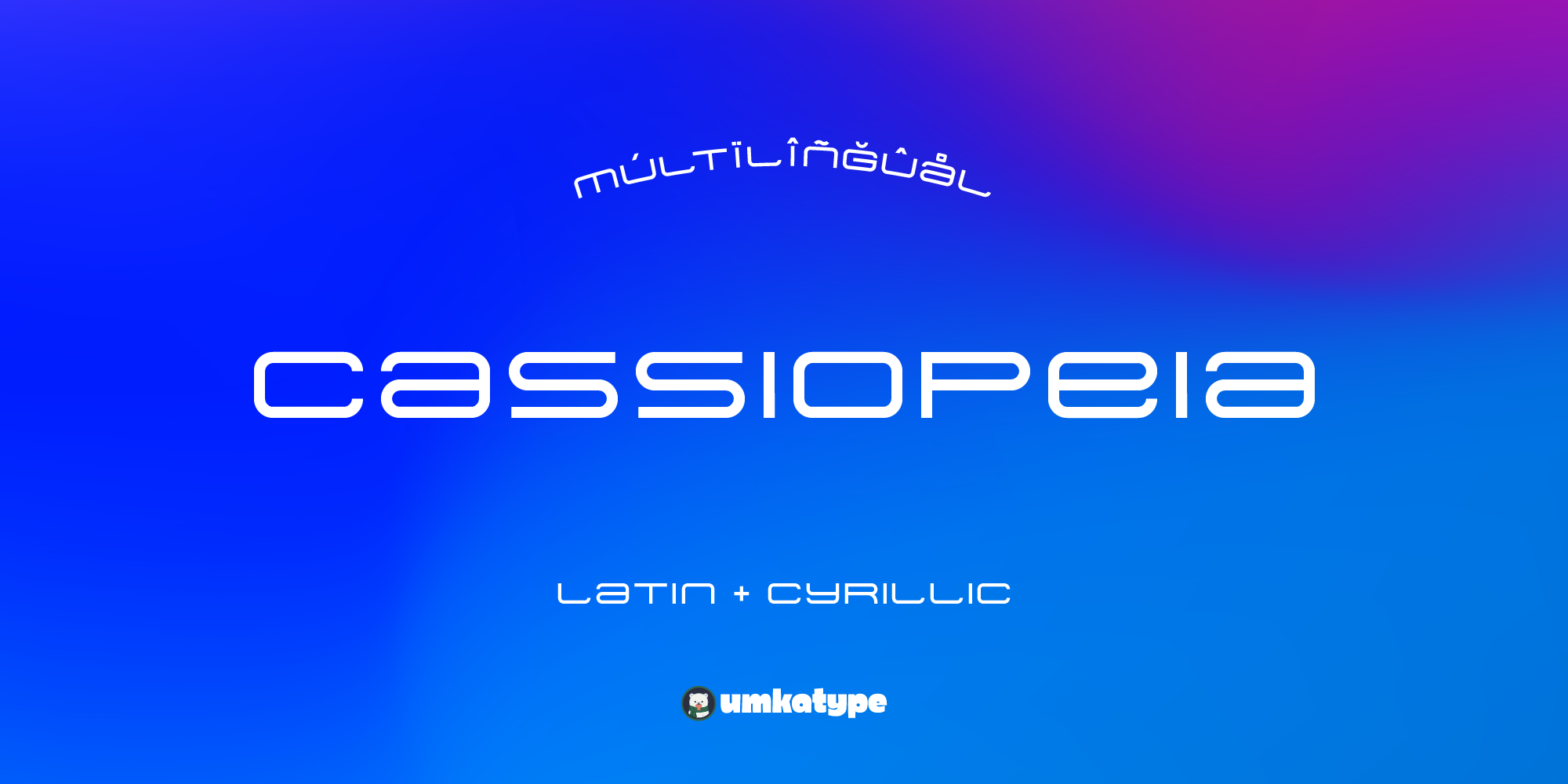
Cassiopeia Font is perfect for celestial branding, astrology websites, mystical product packaging, stargazing applications, cosmic jewelry designs, and ethereal marketing materials. Its stellar character makes it ideal for astronomy clubs, spiritual wellness centers, metaphysical bookstores, constellation-themed events, and any application requiring enchanting typography that conveys cosmic wonder, celestial beauty, and the magical mysteries of the universe.
Cassiopeia Font is exciting because it captures the ethereal elegance of constellation patterns through gracefully curved letterforms that mirror the celestial dance of stars across the night sky. Its luminous proportions and mystical aesthetic evoke the timeless wonder of stargazing and cosmic exploration, making it perfect for brands seeking to convey spiritual connection and universal harmony. The font's celestial character transforms ordinary text into star-kissed visual poetry.
Cassiopeia Font family includes constellation-inspired weight variations typically featuring Light, Regular, Medium, and Bold options with flowing, star-like italic styles. The family often incorporates astronomical symbols, celestial ornaments, and extended character sets designed for mystical and scientific applications, providing designers with comprehensive tools for creating authentic, cosmically-inspired typographic experiences.